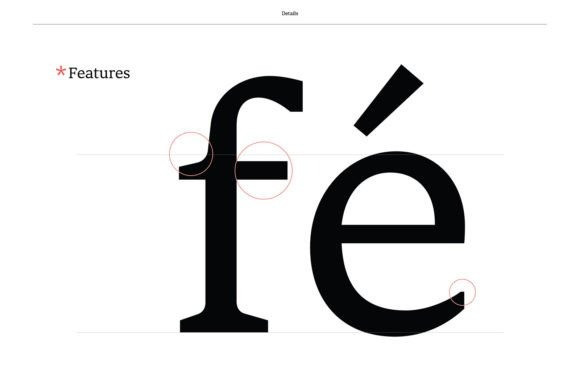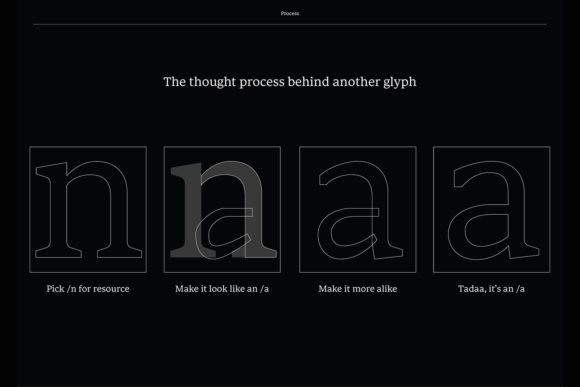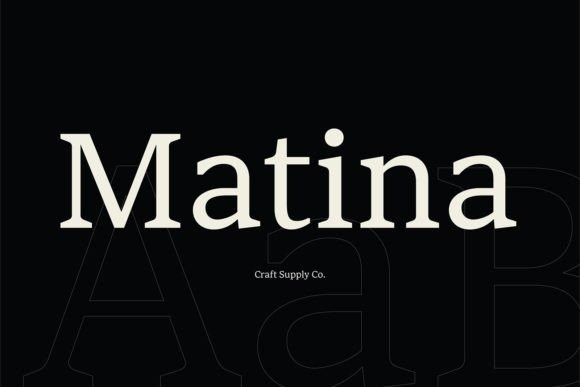
Matina Font
Matina Font is a classic serif font that was was intentionally designed for small text purposes, such as magazines, pocket books, novels, etc.